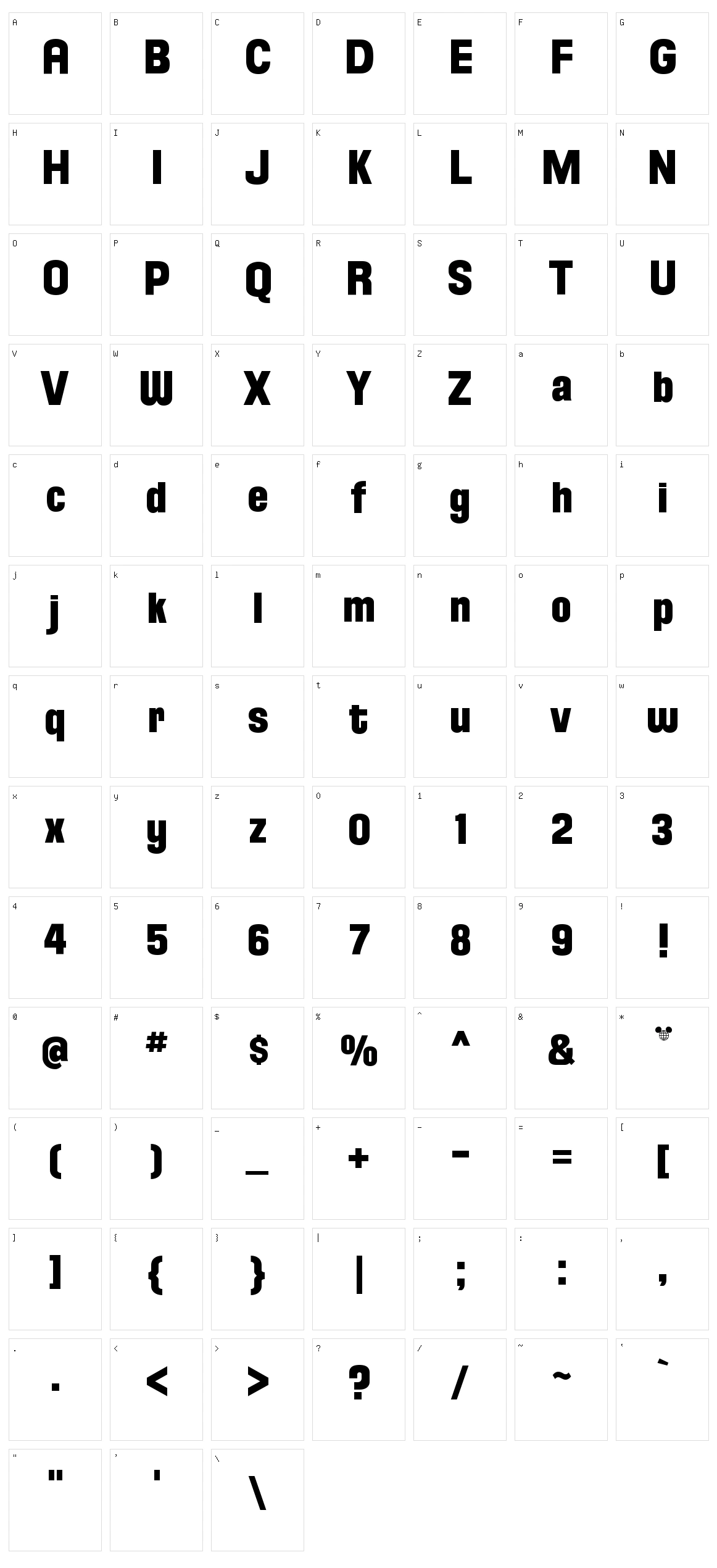
FLORIDA PROJECT is an original font family based on the logotype for Walt Disney World circa 1971 - 1995. The condensed grotesk design was additionally influenced by typefaces such as Helvetica Inserat, Helvetica Compressed, Impact, Aurora, and Eurostile.
FLORIDA PROJECT PHASE ONE contains a conventional set of capitals, lowercase, and most of the extended Latin character set (save for the alternates and dingbats listed below). The numerals match the size and weight of the lowercase. The punctuation is positioned to line up with the lowercase as well.
FLORIDA PROJECT PHASE TWO contains some alternate capitals based on their lowercase counterparts. The numerals match the size and weight of the capitals, and the punctuation lines up with the capitals. The rest of the characters (lowercase, et al) are identical to Phase One.
FLORIDA PROJECT PRO (currently under development) contains all of the glyphs from Phase One and Phase Two in a single OpenType font. Alternate capitals and puncuation are toggled using the Small Caps feature. Alternate numerals are toggled using the Old Style Figures feature. (These functions only work in OpenType-aware applications that support the 'smcp and 'onum' features. If you have software that supports these features and would like to try a preview copy of Florida Project Pro, please send a request to the address at the end of this text.)
DINGBATS
(bullet, Alt+0149): small wireframe globe with ears
± (plus minus, Alt+0177): large wireframe globe with ears
¼ (one quarter, Alt+0188): Walt Disney World logotype version 1
¾ (three quarters, Alt+0190): Walt Disney World logotype version 2
¬ (logical not, Alt+0172): Reedy Creek Improvement District logo
NUMERALS
The numerals in both fonts are tabular (all the same width). Kerning pairs tighten up the spacing between '1' and the other digits. The Pro version contains a separate set of proportional numerals, along with the 'pnum' feature for switching from tabular to proportional figures (this only works in OpenType-aware applications that support the 'pnum' feature).